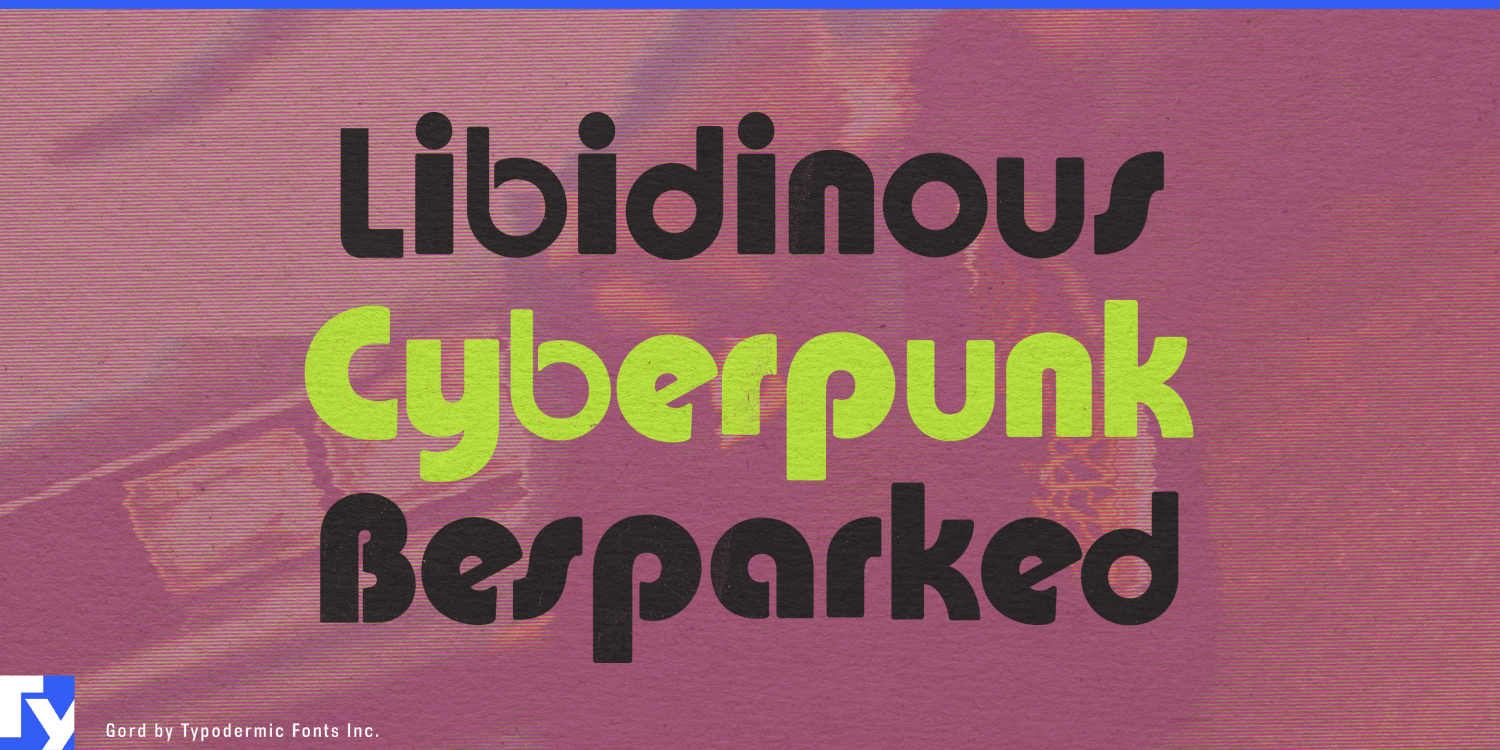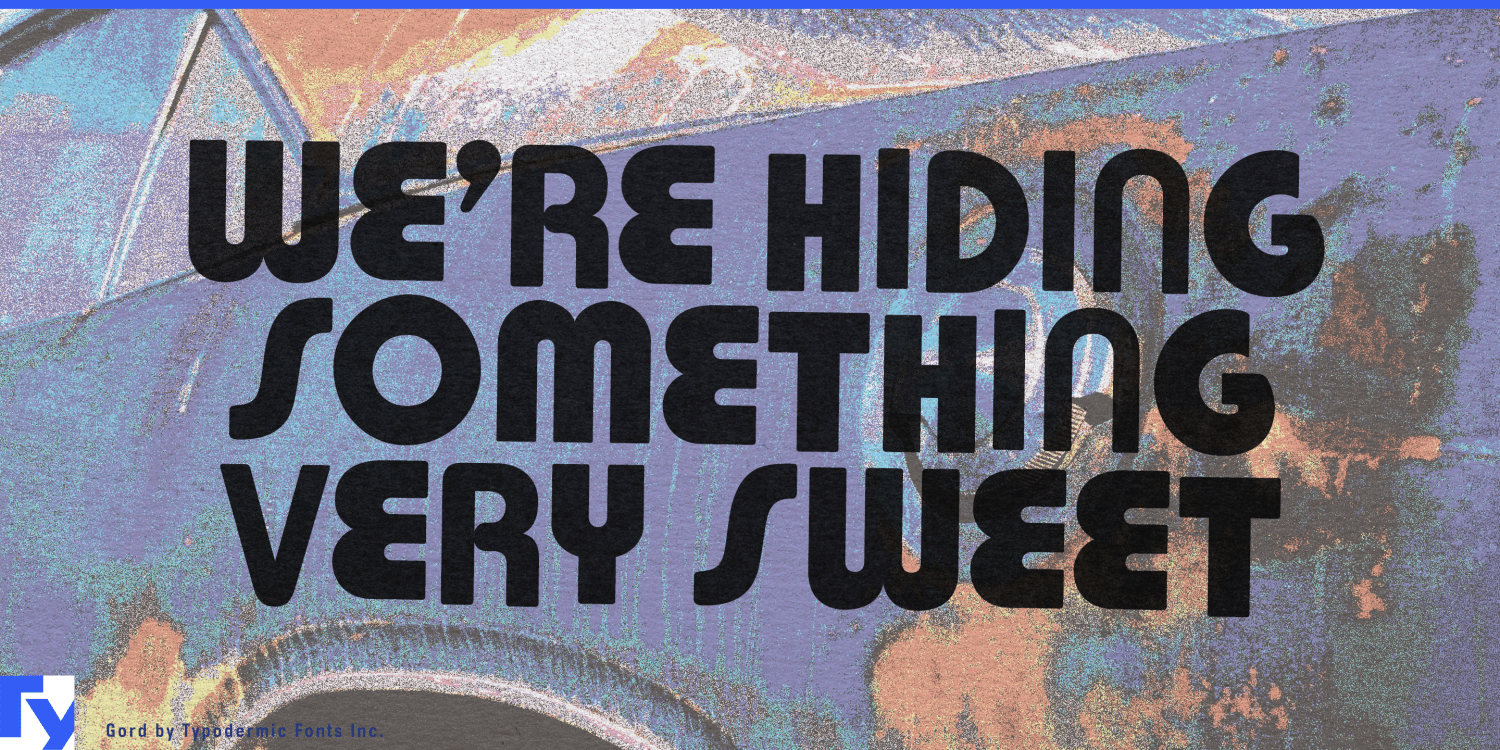
About Gord
Buckle up and prepare for a typographic trip with Gord, a font that doesn’t just break the rules—it throws them out the window of a psychedelic Ford Pinto. This isn’t just a typeface; it’s a time machine disguised as letterforms,…